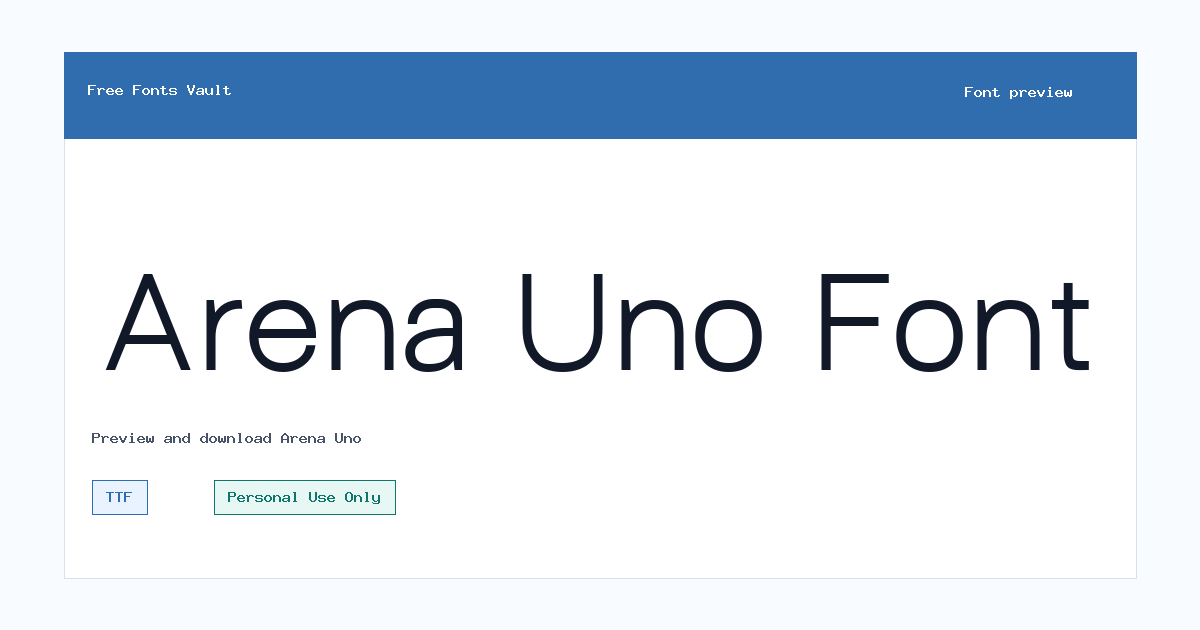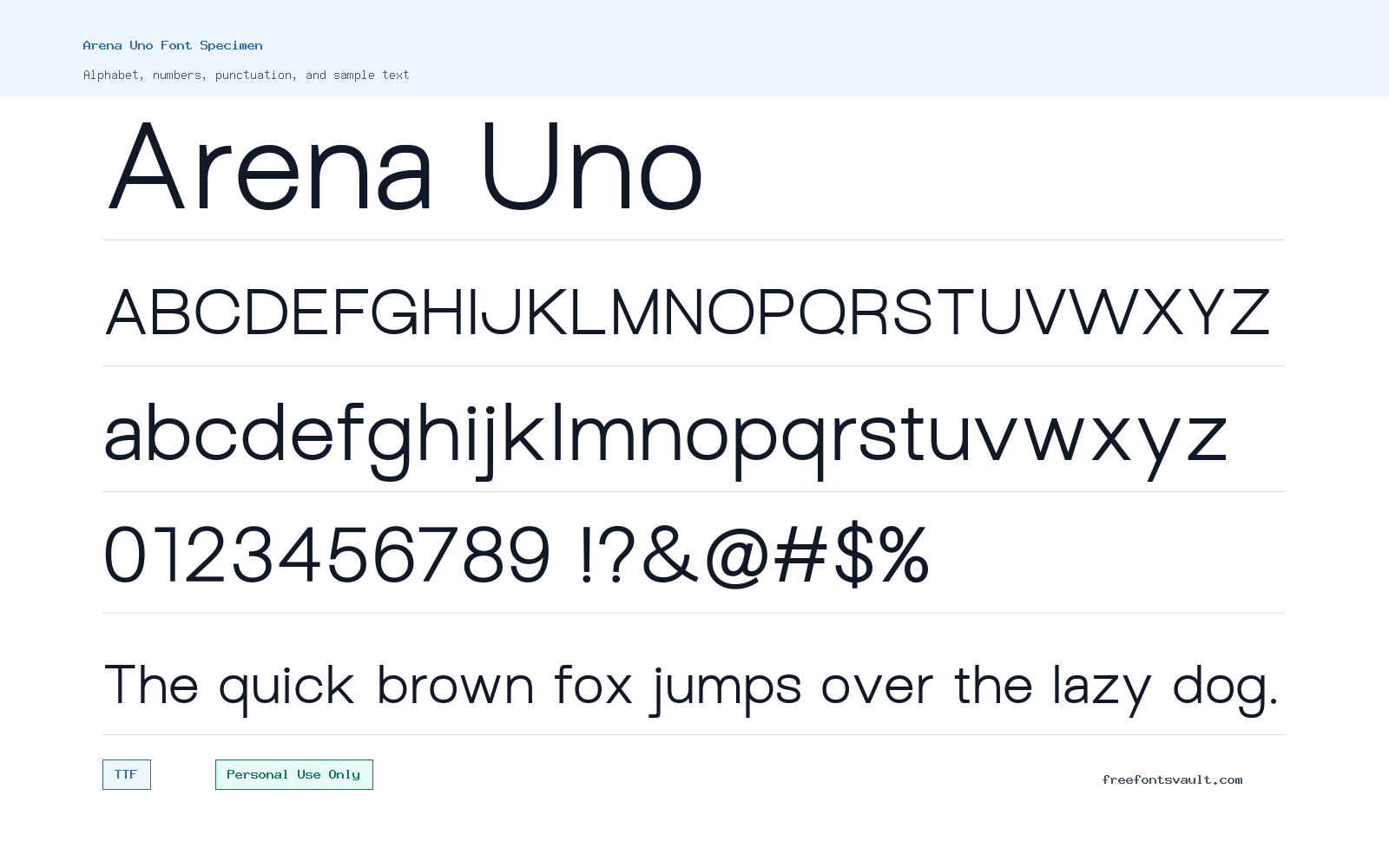
Arena Uno
Arena Uno font.
Arena Uno is a sans serif font family offered in several weights, from Thin to Heavy, with matching italic styles for each main weight.
About Arena Uno Font
Arena Uno gives visitors more flexibility than a single-style font because the family includes Thin, Light, Regular, Medium, Bold, and Heavy weights, plus italic versions. That range makes it useful when you want one type family to handle a simple hierarchy: lighter weights for quiet labels or large display text, Regular and Medium for balanced wording, and Bold or Heavy for stronger headings.
- Sans serif family with Thin, Light, Regular, Medium, Bold, and Heavy weights
- Matching italic styles included across the listed weights
What styles are included with Arena Uno?
The listed family includes Thin, Light, Regular, Medium, Bold, and Heavy weights, with italic versions for those weights.
What is Arena Uno best used for?
It is best tested for short text such as headings, posters, social graphics, labels, and personal design previews. Use the preview tool to check readability before downloading.